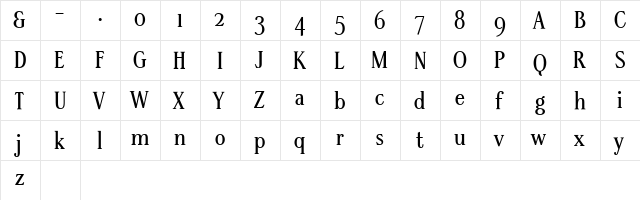
Design Context for SteppITCStd-Bold xPDF Typeface
SteppITCStd-Bold xPDF is a composed and adaptable typeface that performs quietly and consistently across a wide range of design contexts. The heavy weight commands attention and anchors typographic hierarchies.